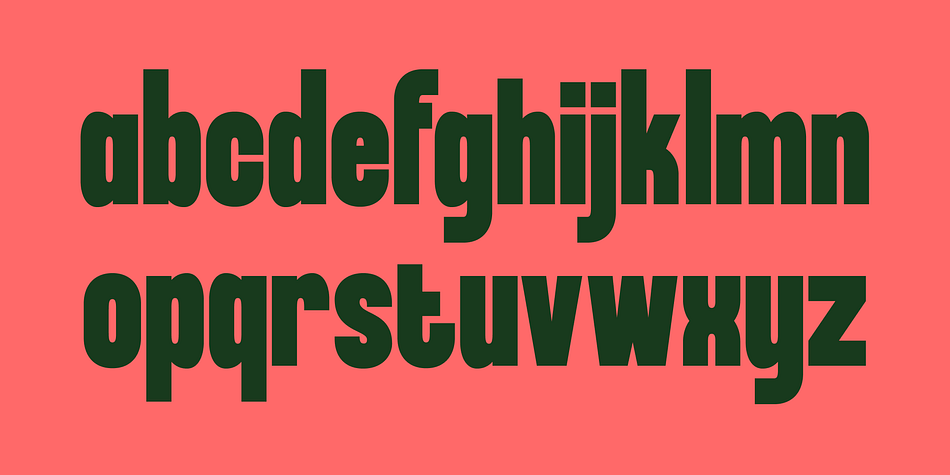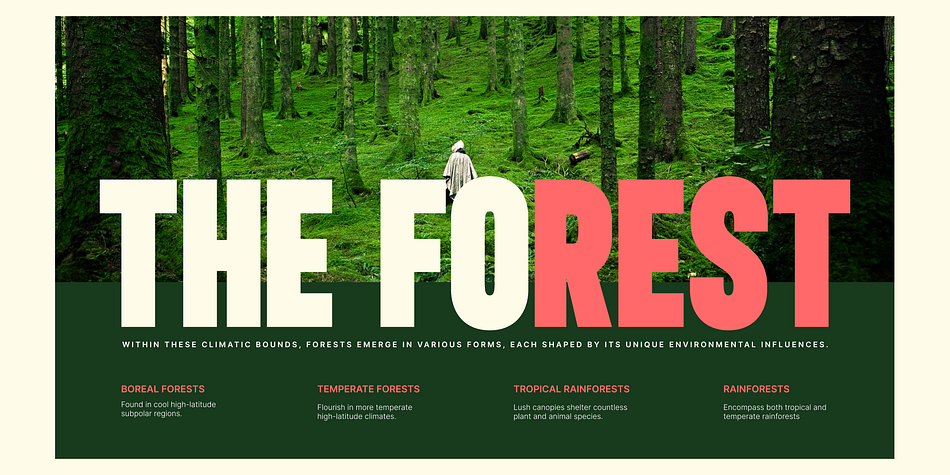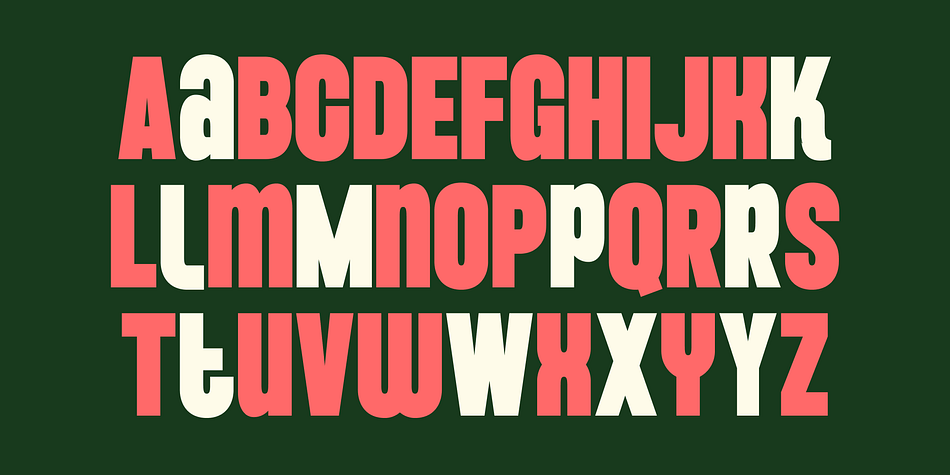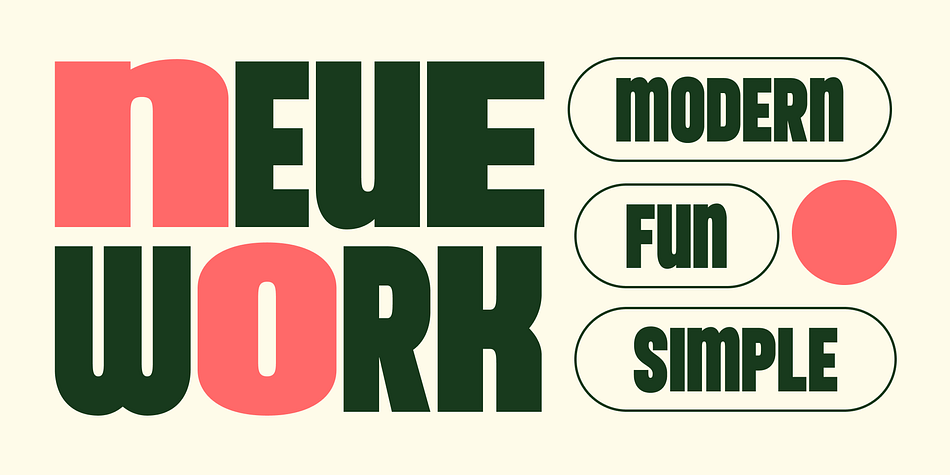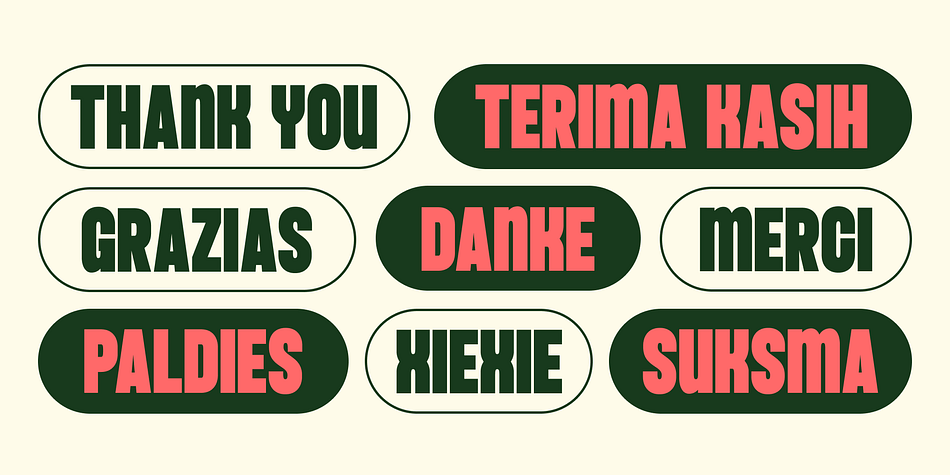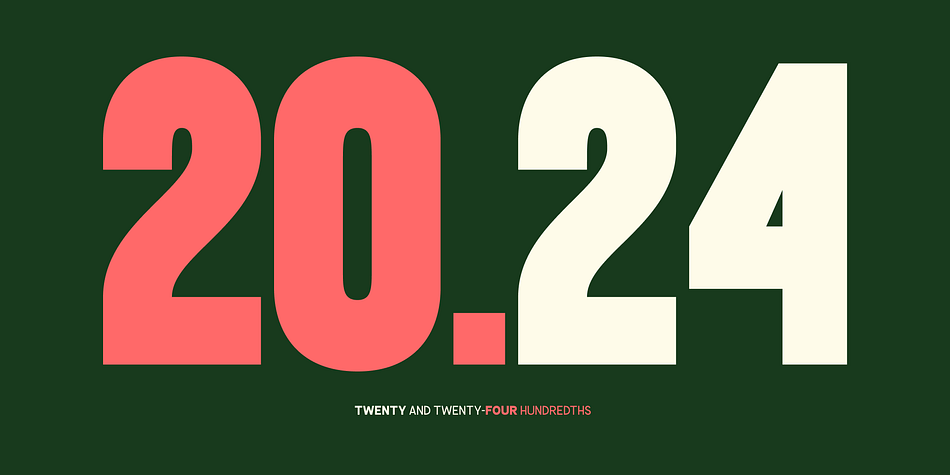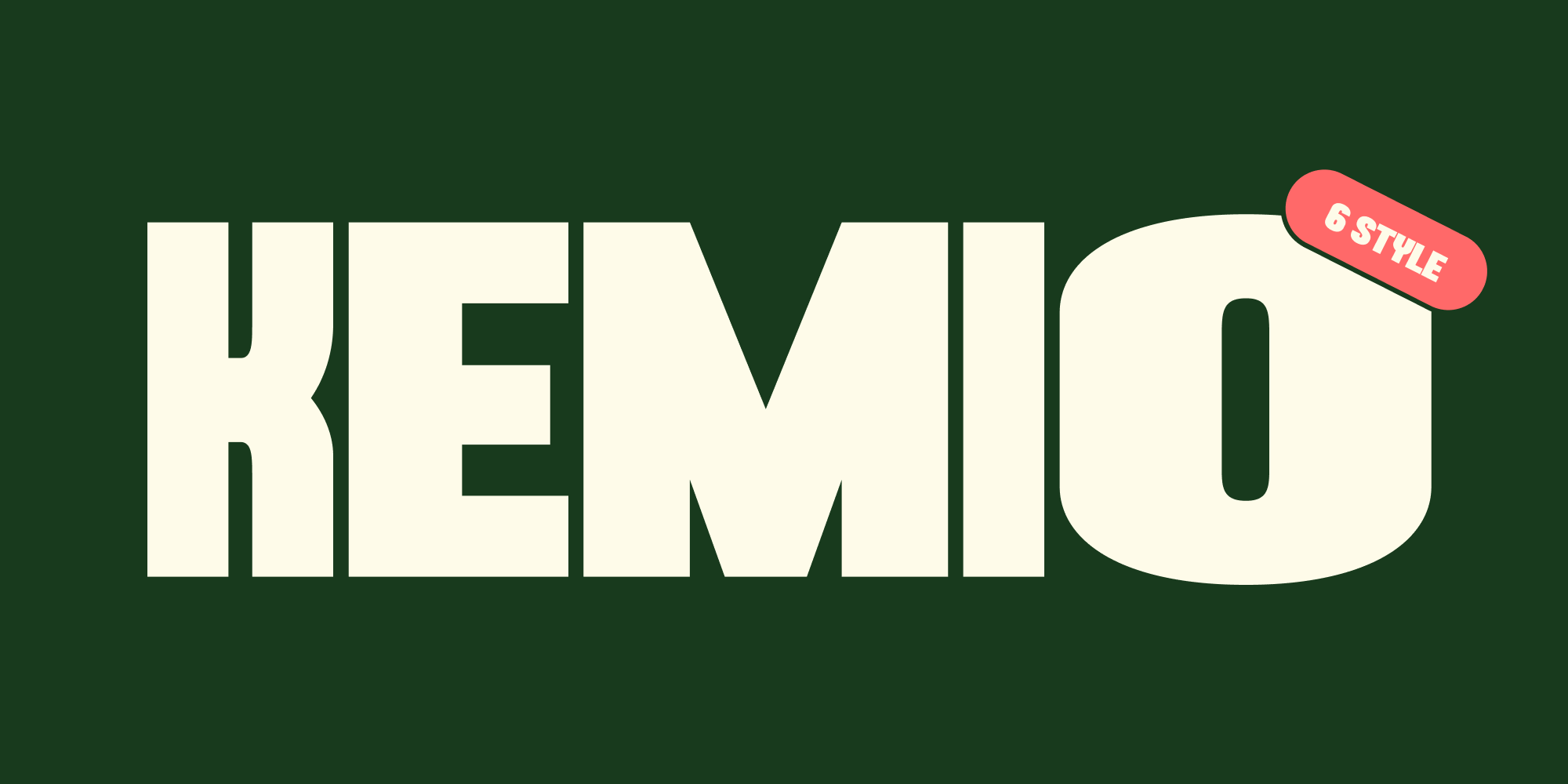
Kemio
Kemio is a sans serif font family. This typeface has six styles and was published by Fitrah Type.
Kemio is the newest typeface with a modern style. Character Inspired By Retro and Bold Typeface. The entire typography has been designed to work on large sizes. This font is good to use on posters, zines, stickers, and t-shirts.